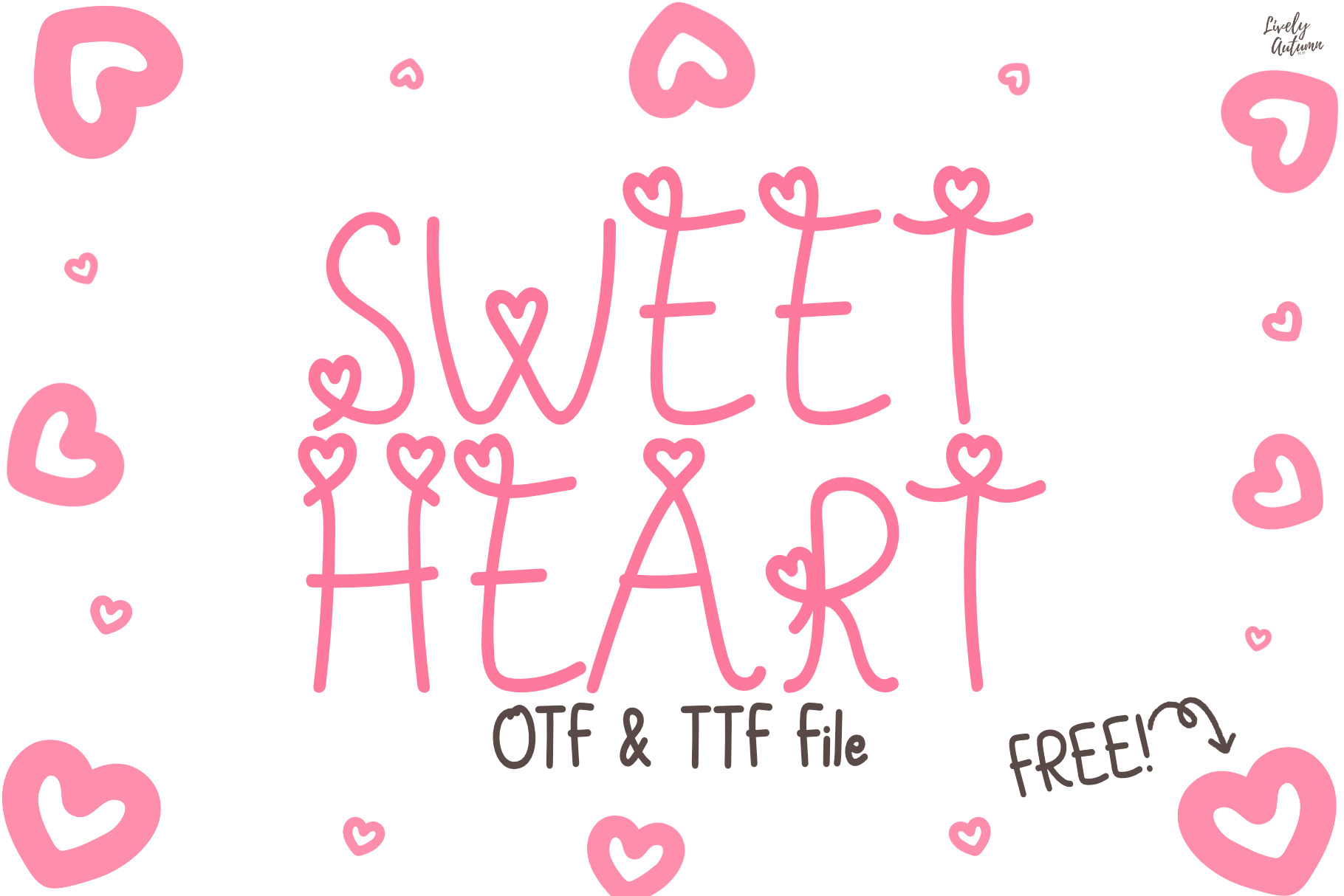
Sweetheart | Decorative font
Sweetheart is a handwriting-style font with a heart shape attached to each letter. Perfect for Valentine's Day project, personal projects and various projects. From invitations to posters, social media graphics, journals, greeting cards, and much more.